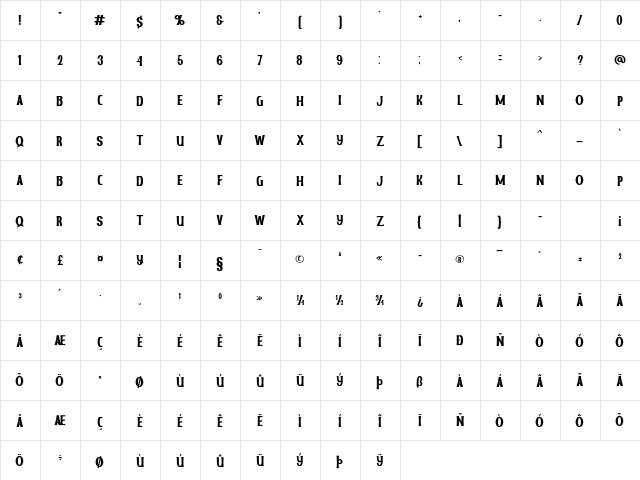
Bronxi Rough
| Foundry | FallenGraphic |
| Designer | Vava Aryanto |
Design Context for Bronxi Typeface
Bronxi trades polish for personality, using distressed and eroded forms to bring grit and attitude to creative work.
Suited to punk-influenced zines, underground music branding, streetwear, and raw, anti-corporate design.